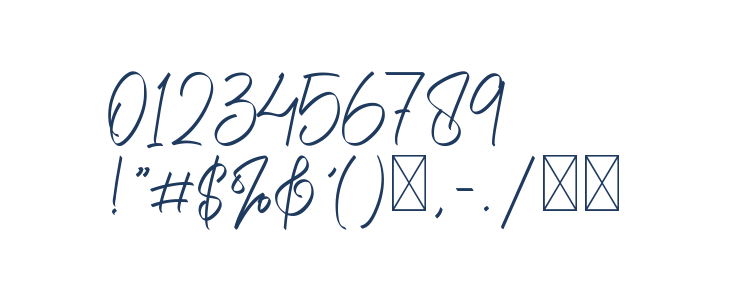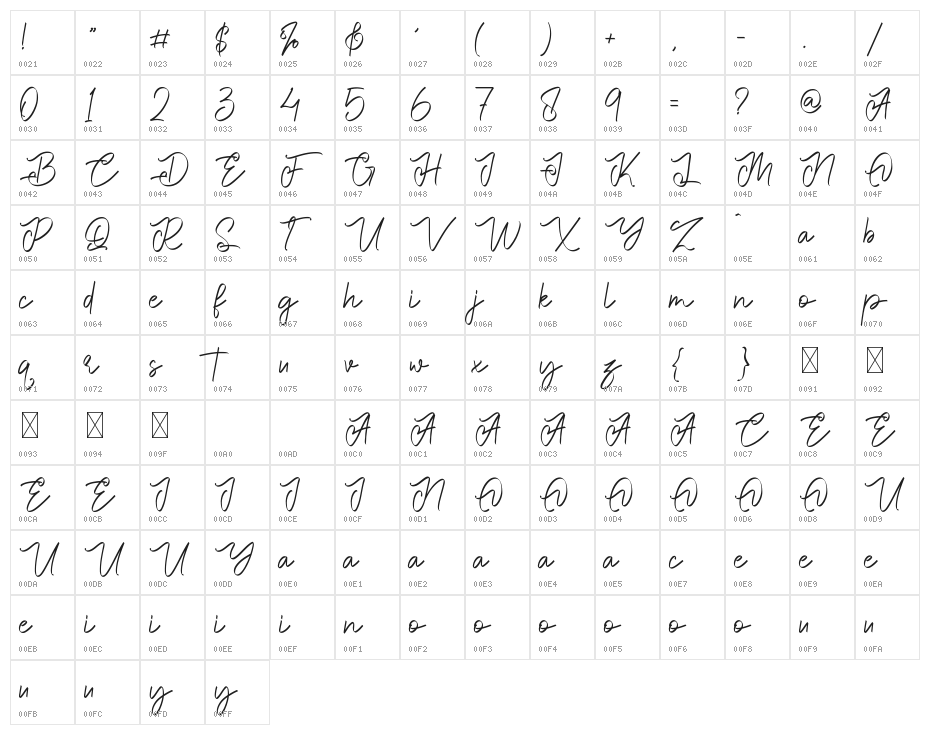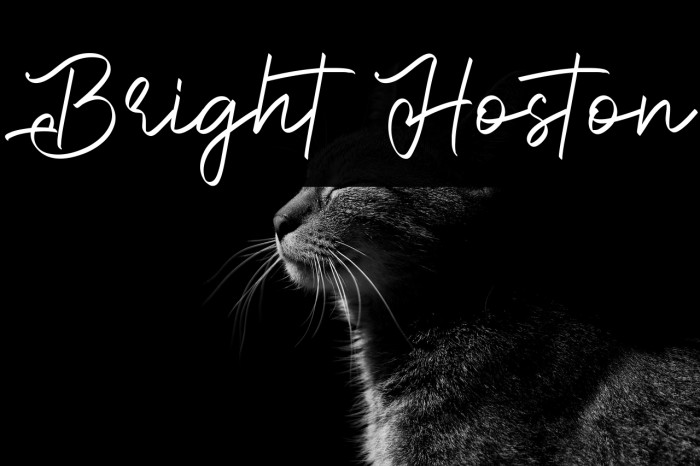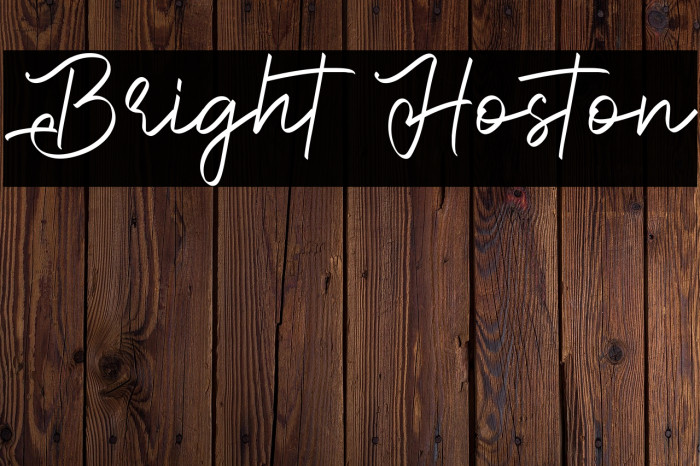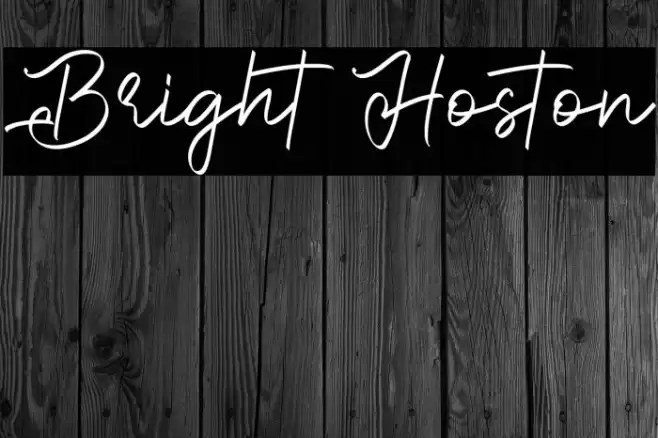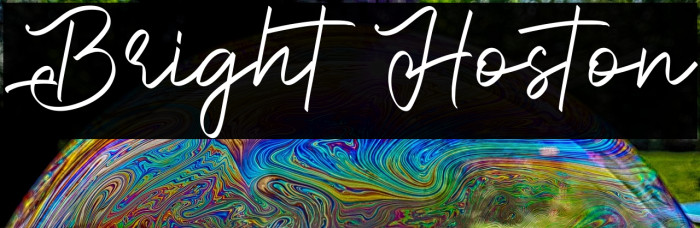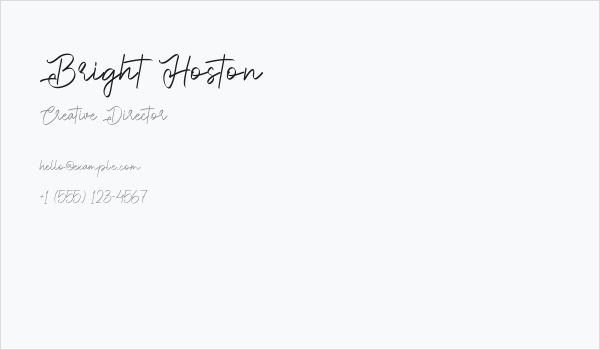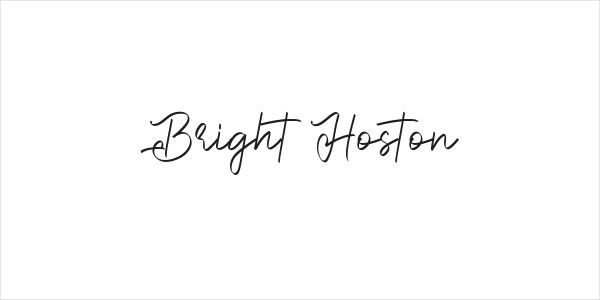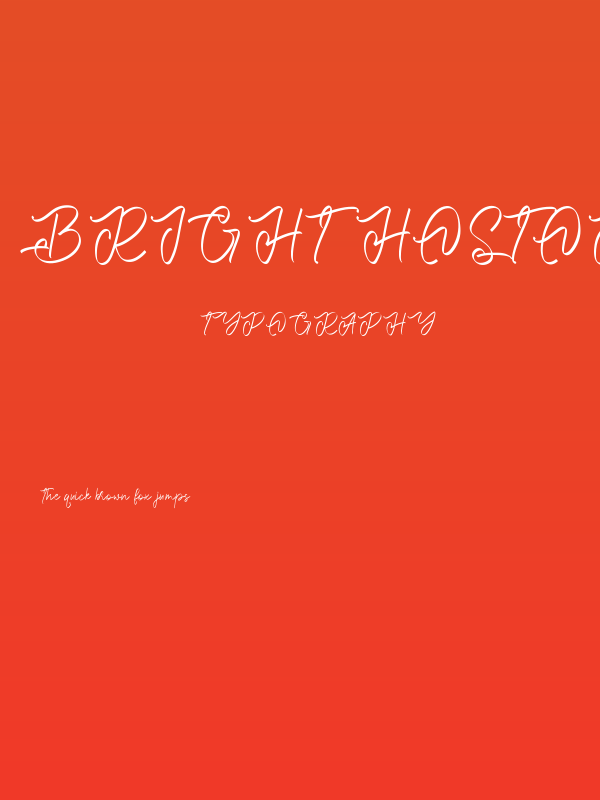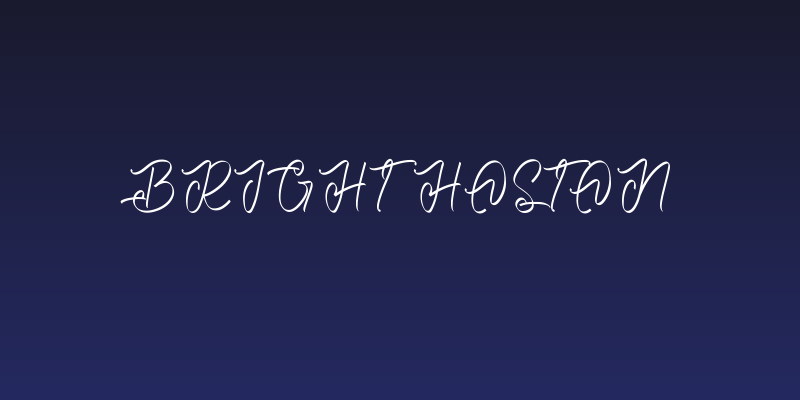
Bright Hoston Font
Bright Hoston Description
This font exudes a lively and expressive character, featuring a handwritten script style with fluid, connected strokes. The uppercase letters are elegantly looped and slightly slanted, giving a sense of movement and grace. The lowercase letters maintain a consistent flow, enhancing readability while retaining a personal touch. Numbers and special characters are crafted with the same attention to detail, ensuring a cohesive look throughout. This font is perfect for projects that require a personal, artistic flair, such as invitations, greeting cards, or branding materials.
| Proposed Projects | Ideal for invitations, greeting cards, branding, and artistic projects. |